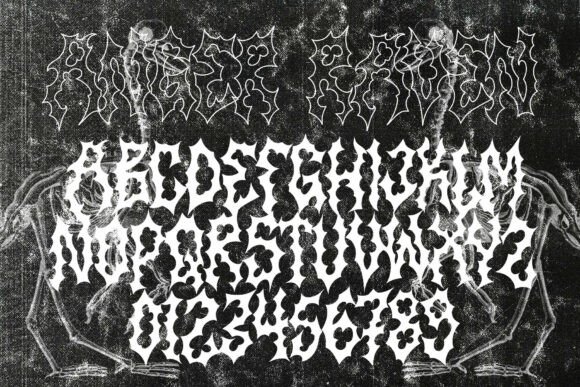
Introducing Anger Raven Font: The Ultimate Rebel’s Choice for Bold Statements
In the world of typography, fonts are often designed with readability and elegance in mind. However, for those who dare to be different and crave to make a loud statement, Anger Raven Font is the perfect choice. This experimental display font is a chaotic clash of sharp edges, distorted shapes, and brutal rhythm, making it a game-changer for designers who want to push the boundaries of creativity.
The Inspiration Behind Anger Raven
Anger Raven Font draws inspiration from the raw visual aggression of underground noise scenes, street collage, and extreme metal logos. The font’s design is a reflection of the unapologetic and rebellious spirit of these subcultures, making it perfect for projects that thrive on intensity, rebellion, and distortion.
A Chaotic Clash of Sharp Edges and Distorted Shapes
Anger Raven Font is a deliberate departure from traditional typography. Each character is designed to be a grotesque texture and mutated letterform, combining to create something purely visceral. The font’s sharp edges and distorted shapes make it a perfect fit for noise album covers, avant-garde zines, anarchic apparel, and any project that requires a bold and unapologetic statement.
Unforgettable in Execution, Unreadable by Design
Anger Raven Font is not designed for clear messages or elegant typography. Instead, it’s a font that thrives on visual noise and chaos. The font’s design is intentionally unreadable, making it perfect for designers who want to create a bold statement or evoke a particular emotion. With Anger Raven, you can create a visual impact that’s hard to ignore.
Perfect for Rebels and Nonconformists
Anger Raven Font is not for the faint of heart. It’s a font that’s designed for rebels, nonconformists, and those who refuse to be bound by traditional design rules. If you’re looking for a font that will make a statement, provoke a reaction, and challenge the status quo, then Anger Raven is the perfect choice.
How to Use Anger Raven Font
Anger Raven Font is perfect for a variety of projects, including:
- Noise album covers: Add a touch of raw aggression to your music with Anger Raven Font.
- Avant-garde zines: Create a bold and unapologetic statement with Anger Raven Font.
- Anarchic apparel: Make a statement with Anger Raven Font on your clothing and accessories.
- Visual art: Use Anger Raven Font to add a touch of chaos and rebellion to your visual art.
Tips for Pairing Anger Raven Font with Other Fonts
When pairing Anger Raven Font with other fonts, it’s essential to balance its bold and chaotic design with a more elegant and readable font. Here are some tips:
- Pair Anger Raven Font with a clean sans-serif font for a bold contrast.
- Use Anger Raven Font as a headline font and pair it with a more elegant serif font for body text.
- Experiment with different font combinations to create a unique and bold statement.
Anger Raven Font is a game-changer for designers who want to push the boundaries of creativity. With its chaotic clash of sharp edges, distorted shapes, and brutal rhythm, this font is perfect for projects that thrive on intensity, rebellion, and distortion. Whether you’re a rebel, nonconformist, or simply looking for a bold statement, Anger Raven Font is the ultimate choice.